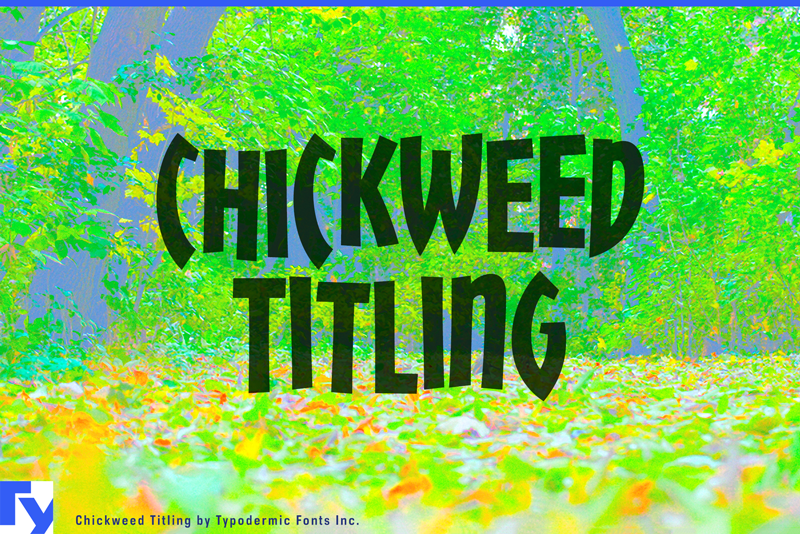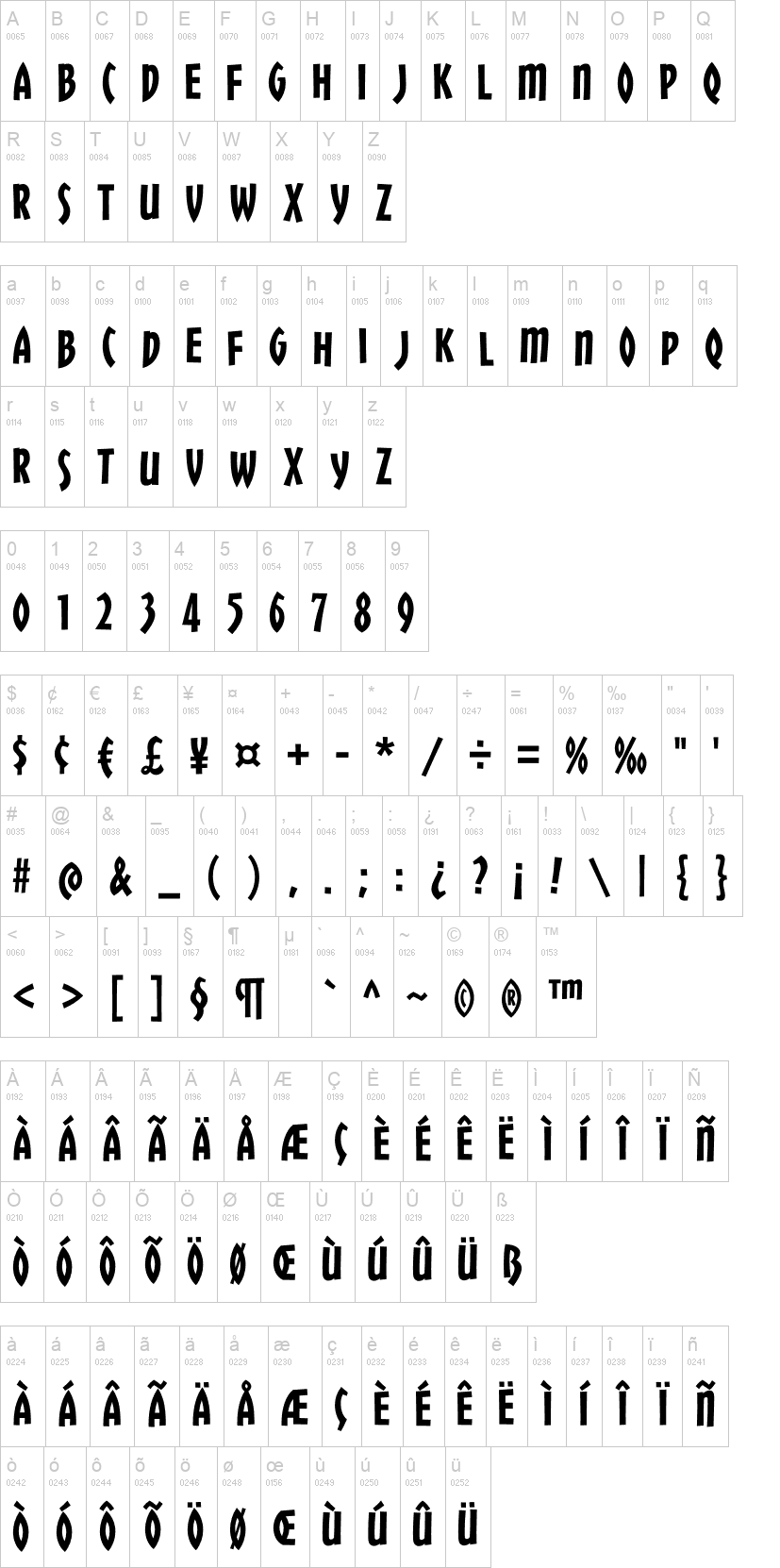
Note of the authorChickweed is the typeface to use when you need engaging, informal headlines that take up little space. Letter and numerical variations are automatically jumbled in OpenType-savvy programs for a more natural, exuberant look. If you'd like a version with lowercase, check out the regular Chickweed typeface from Typodermic Fonts. Most Latin-based European writing systems are supported, including the following languages. Afaan Oromo, Afar, Afrikaans, Albanian, Alsatian, Aromanian, Aymara, Bashkir (Latin), Basque, Belarusian (Latin), Bemba, Bikol, Bosnian, Breton, Cape Verdean, Creole, Catalan, Cebuano, Chamorro, Chavacano, Chichewa, Crimean Tatar (Latin), Croatian, Czech, Danish, Dawan, Dholuo, Dutch, English, Estonian, Faroese, Fijian, Filipino, Finnish, French, Frisian, Friulian, Gagauz (Latin), Galician, Ganda, Genoese, German, Greenlandic, Guadeloupean Creole, Haitian Creole, Hawaiian, Hiligaynon, Hungarian, Icelandic, Ilocano, Indonesian, Irish, Italian, Jamaican, Kaqchikel, Karakalpak (Latin), Kashubian, Kikongo, Kinyarwanda, Kirundi, Kurdish (Latin), Latvian, Lithuanian, Lombard, Low Saxon, Luxembourgish, Maasai, Makhuwa, Malay, Maltese, Māori, Moldovan, Montenegrin, Ndebele, Neapolitan, Norwegian, Novial, Occitan, Ossetian (Latin), Papiamento, Piedmontese, Polish, Portuguese, Quechua, Rarotongan, Romanian, Romansh, Sami, Sango, Saramaccan, Sardinian, Scottish Gaelic, Serbian (Latin), Shona, Sicilian, Silesian, Slovak, Slovenian, Somali, Sorbian, Sotho, Spanish, Swahili, Swazi, Swedish, Tagalog, Tahitian, Tetum, Tongan, Tshiluba, Tsonga, Tswana, Tumbuka, Turkish, Turkmen (Latin), Tuvaluan, Uzbek (Latin), Venetian, Vepsian, Võro, Walloon, Waray-Waray, Wayuu, Welsh, Wolof, Xhosa, Yapese, Zapotec Zulu and Zuni.